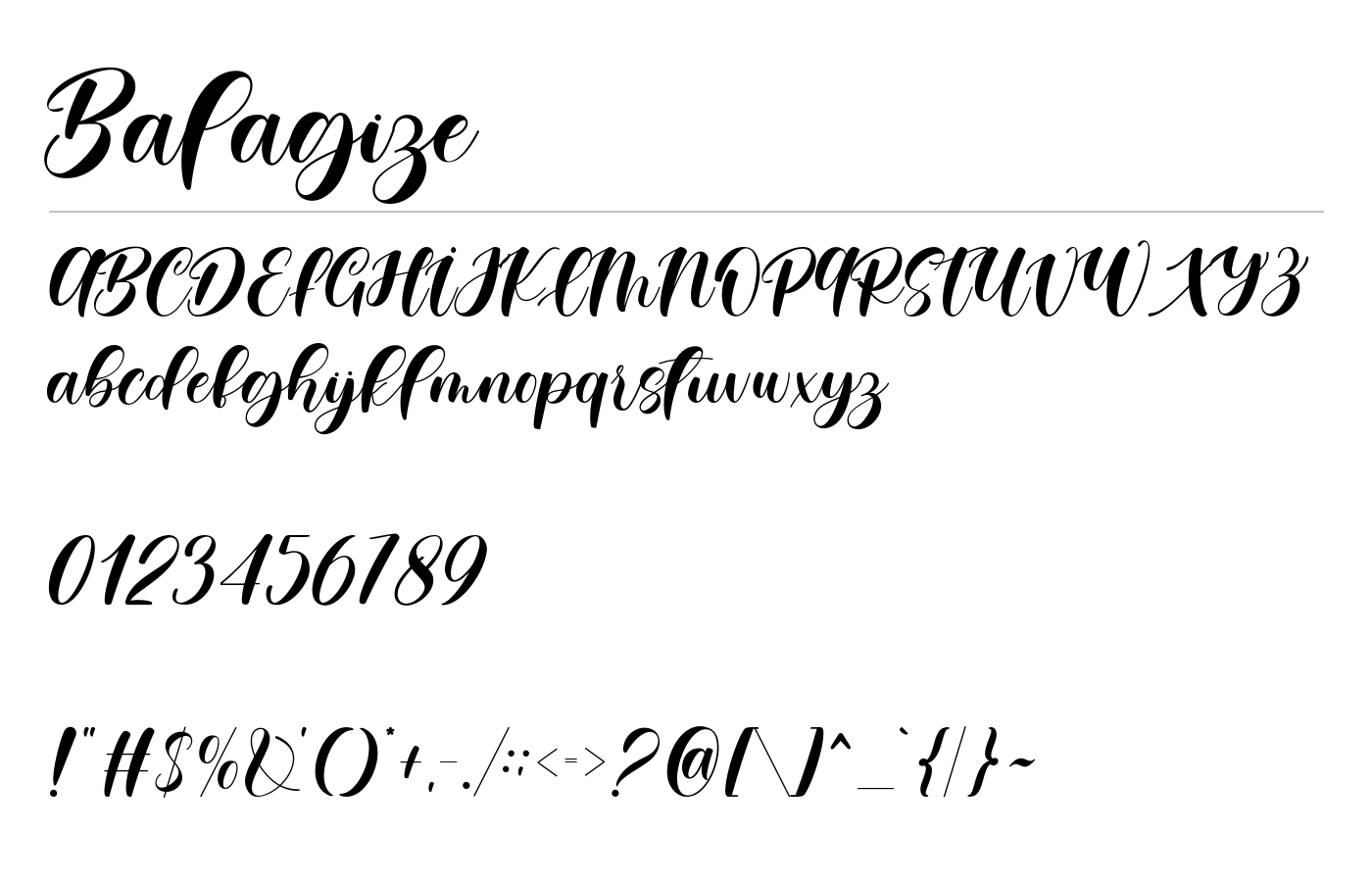
Balagize is an elegant, script-style font with a bold yet graceful flow, featuring fluid, brush-like strokes and delicate curls that create a lively and sophisticated feel. Its moderately high contrast and smooth curves make it perfect for luxury branding, invitations, and stylish headlines where a personal, artistic touch is desired. This font excels in designs needing a chic and expressive flair that grabs attention while maintaining readability.
Balagize Font